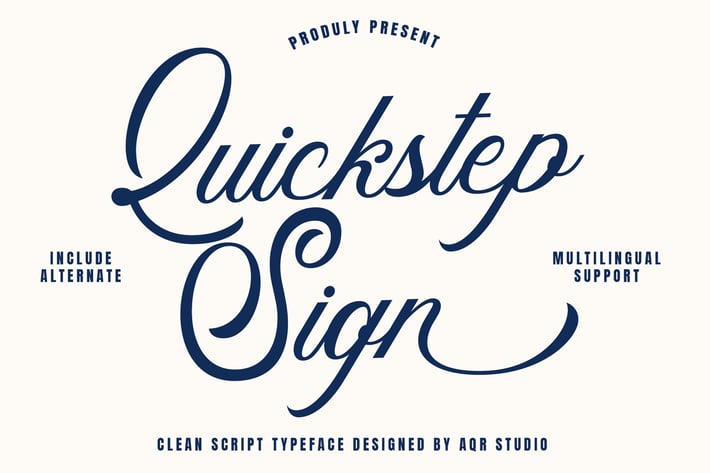
Quickstep Sign - Clean Script Font
Quickstep Sign - Clean Script Font contains a lowercase, and uppercase, symbol, and also supports multi-language. There’s a lot of ligature in this font. Quickstep Sign - Clean Script Font also comes with ligatures, stylistic alternates, and many more.
this font is suitable for fashion, branding, catalog, and other designs that you want.